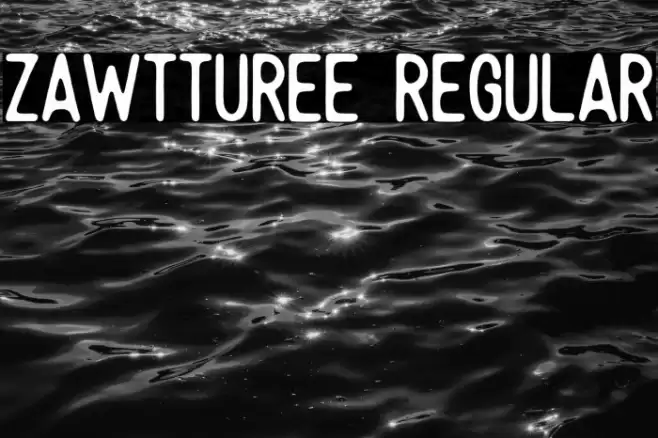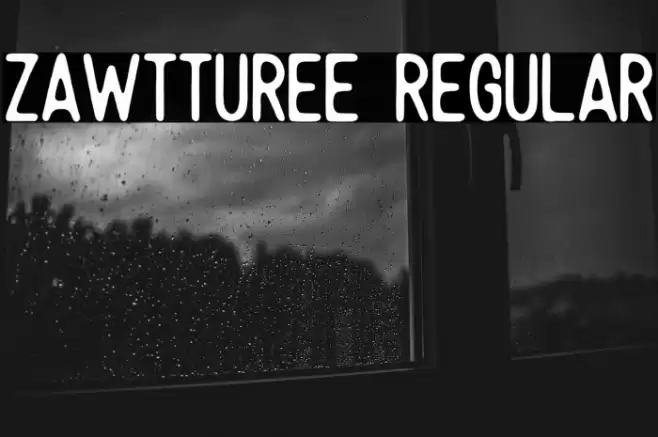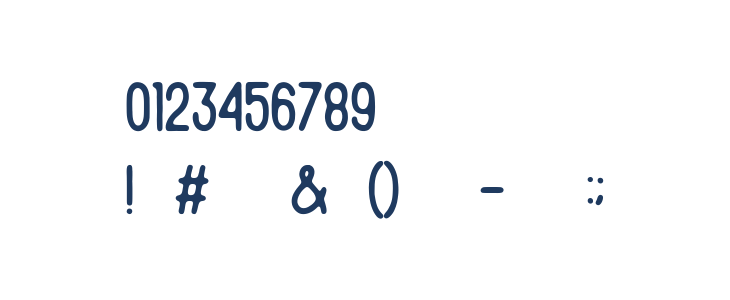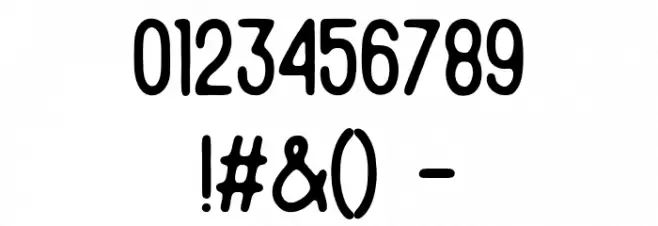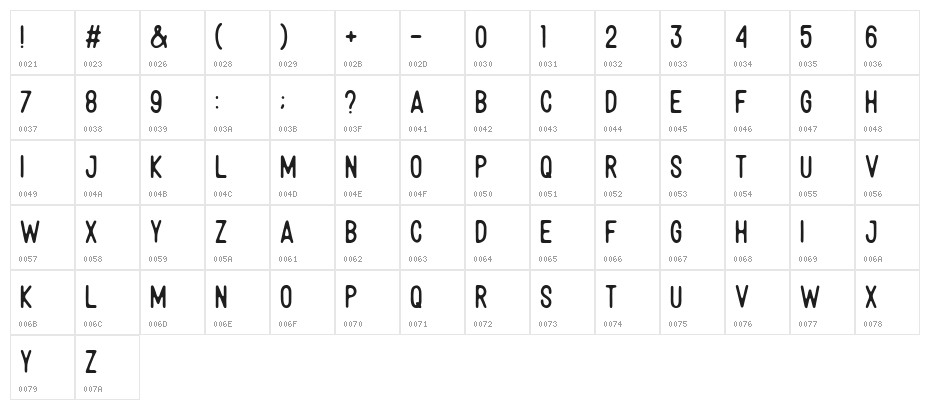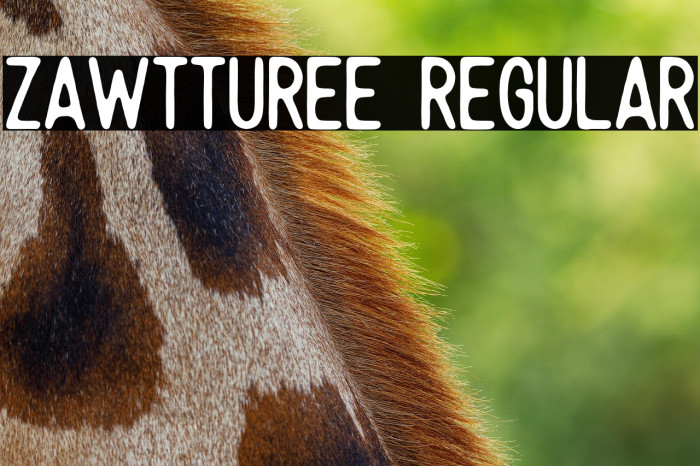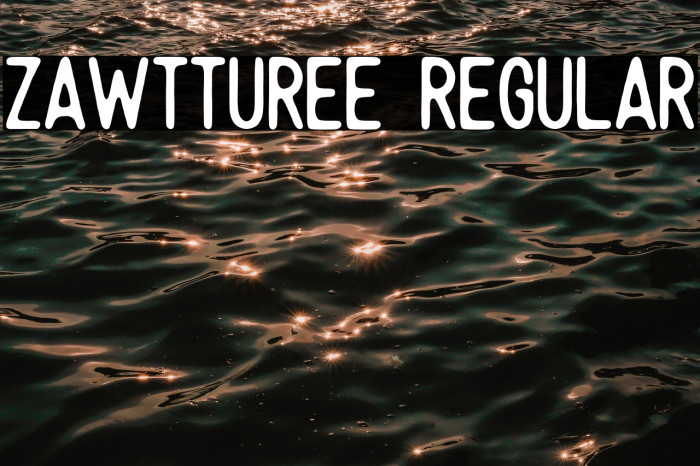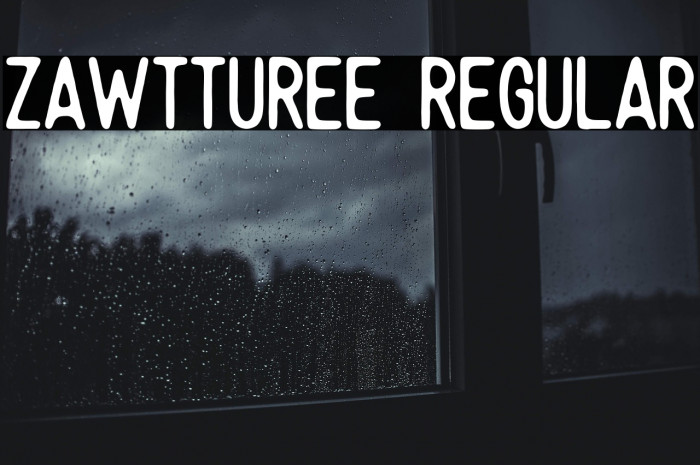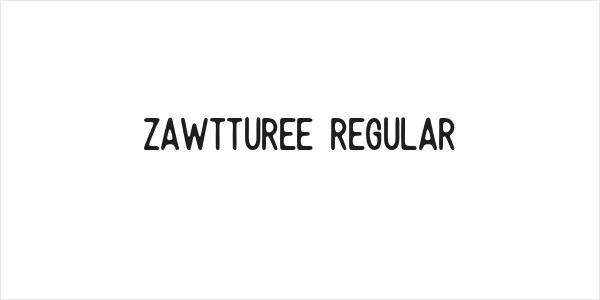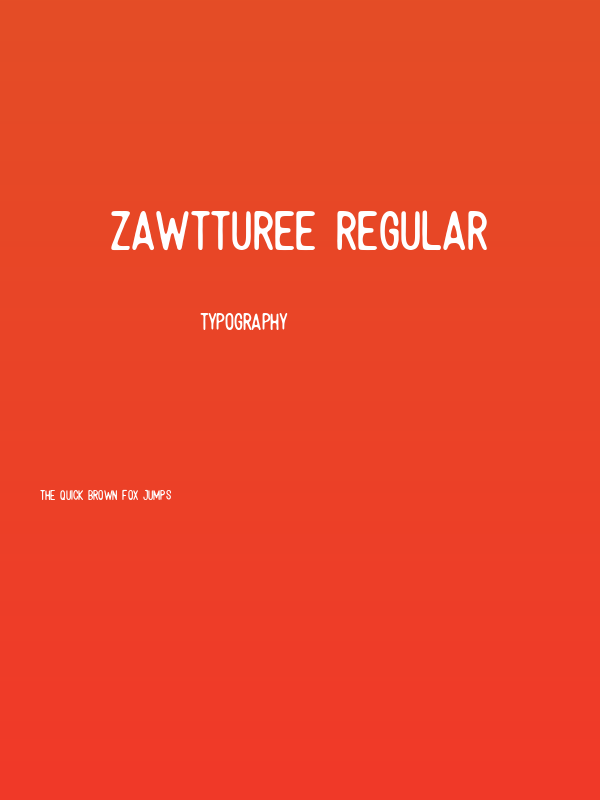
Zawtturee Regular Font
Zawtturee Regular Description
This font features a playful and bold design with rounded edges and a slightly condensed appearance. The characters are uniformly thick, giving it a consistent and cohesive look. The uppercase and lowercase letters maintain a similar width, creating a harmonious balance. The numbers and special characters are designed to match the overall style, making them easily readable. The font's unique style is both modern and approachable, suitable for a variety of creative projects.
A playful, bold font with rounded edges and a slightly condensed style from Uncategorized fonts.
- Font: Zawtturee Regular
- Proposed Projects: Ideal for children's books, playful branding, posters, and creative digital content.